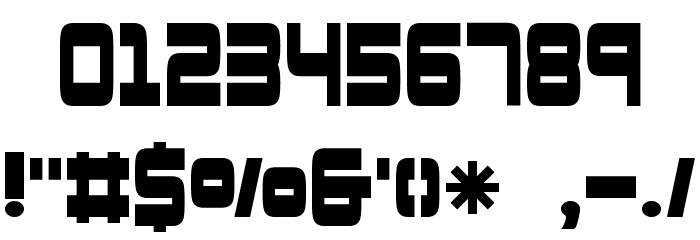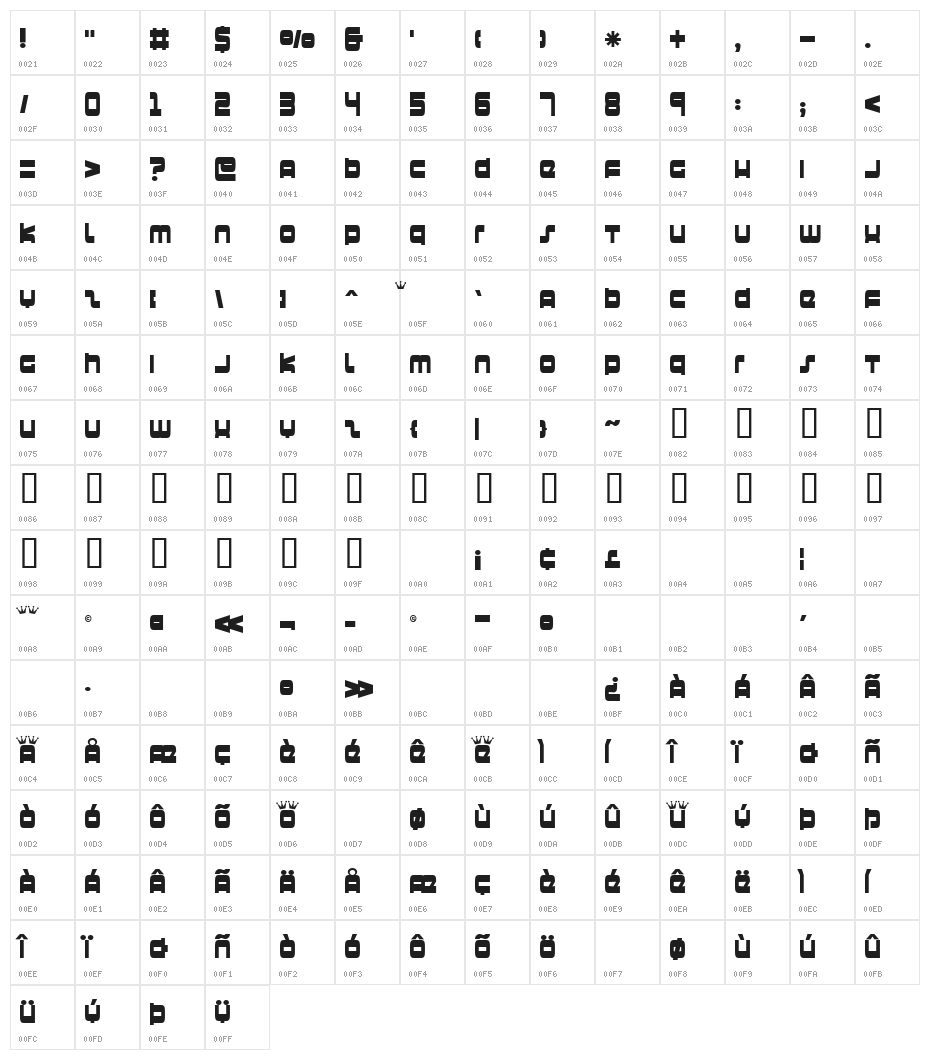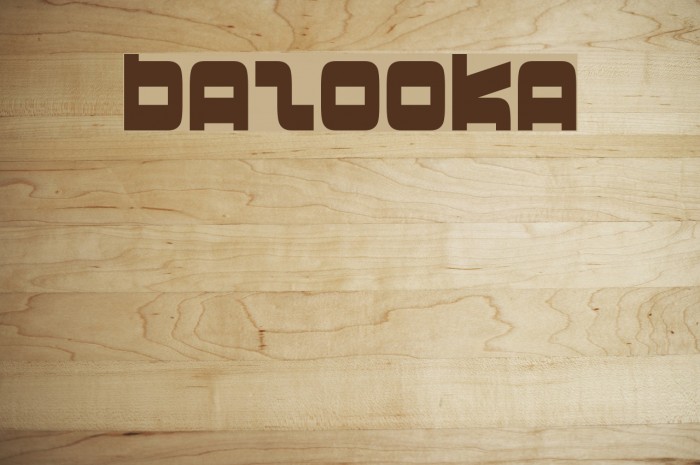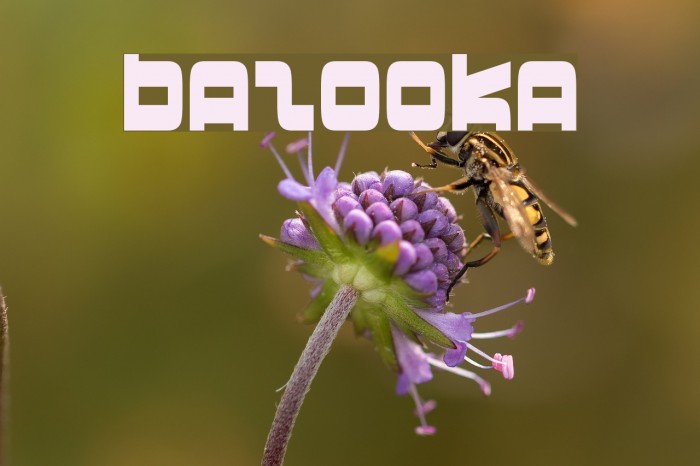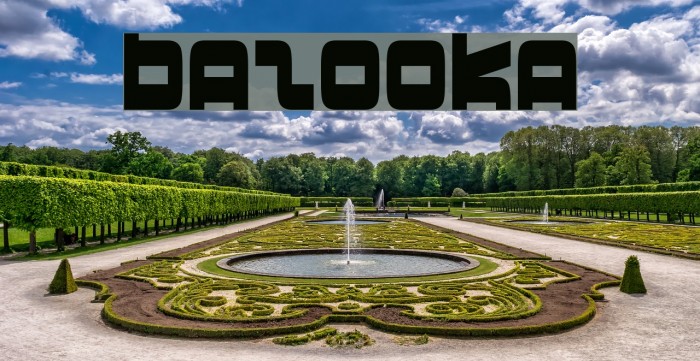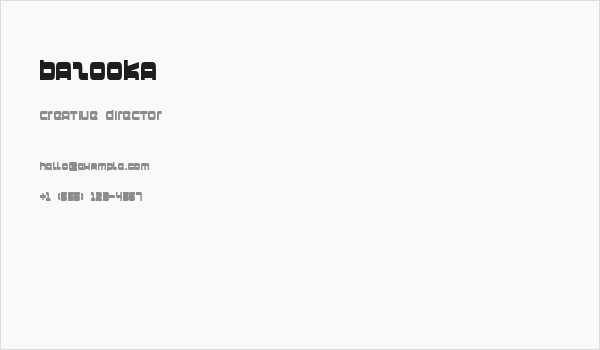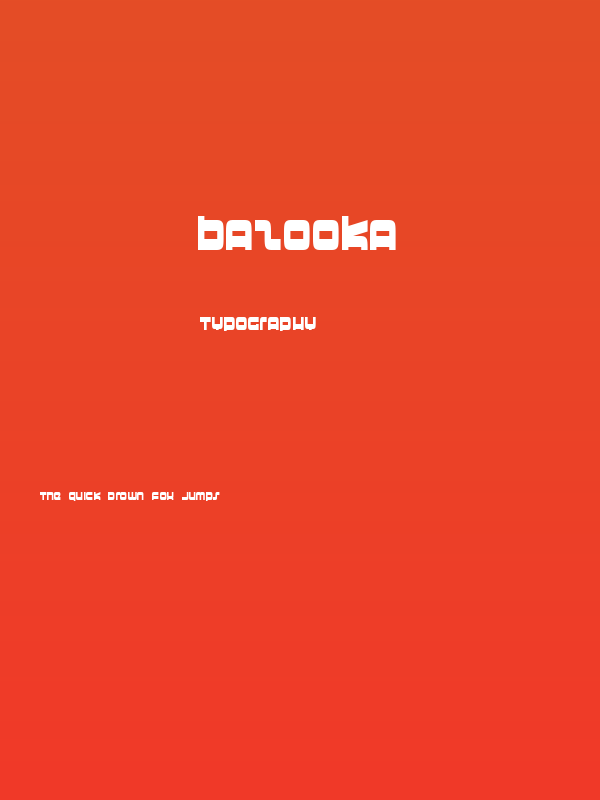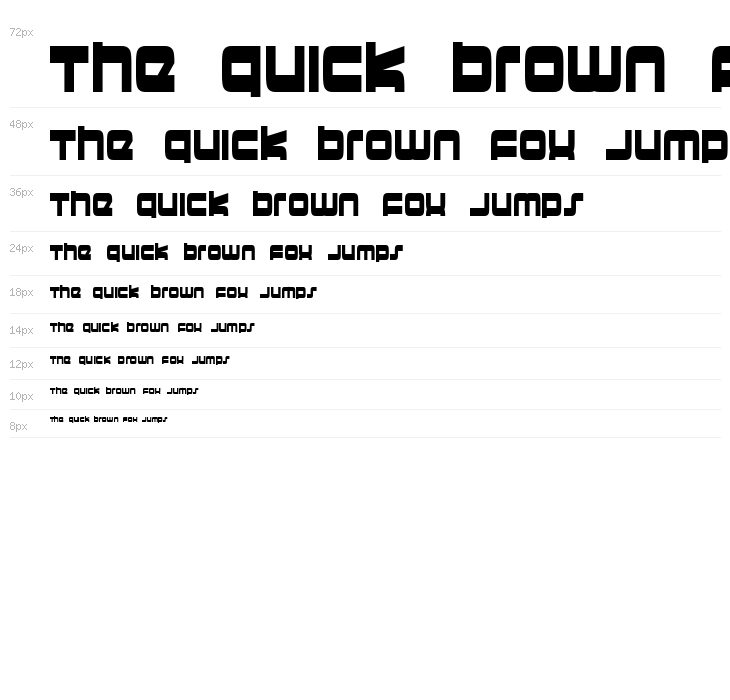
Bazooka Font
Bazooka Description
This font features a bold and geometric design with a strong presence. The characters are blocky and robust, with a uniform thickness that gives them a solid and impactful appearance. The style is reminiscent of retro and arcade aesthetics, making it ideal for projects that require a vintage or playful touch. The uppercase and lowercase letters maintain a consistent height, contributing to a cohesive and structured look. The numerals and special characters follow the same design principles, ensuring a harmonious overall appearance.
| Overall Style | Retro, Playful |
| Proposed Projects | Ideal for video game graphics, retro-themed posters, and bold branding projects. |